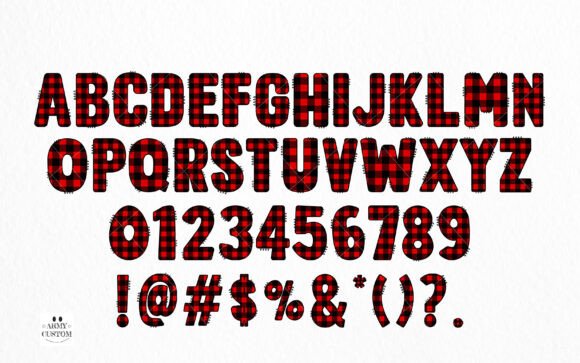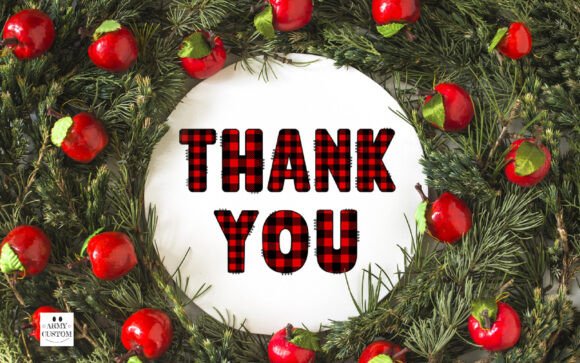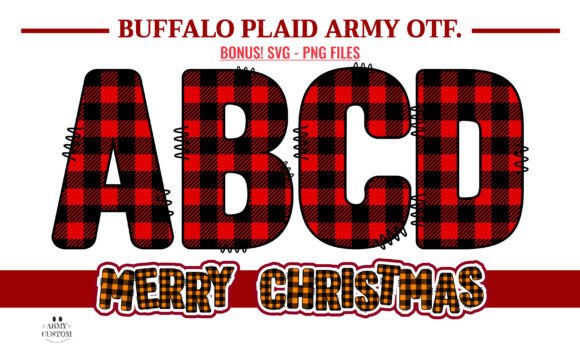
Deck the Halls with the Buffalo Plaid Font: A Festive Design Delight
It’s the most wonderful time of the year – and I’m not just talking about the hot cocoa and cookie exchange! As designers, we’re always on the lookout for that perfect font to make our holiday projects shine. I recall a particularly stressful design session last December, frantically searching for a font that captured the cozy essence of Christmas. That’s when I stumbled upon the Buffalo Plaid Font, and let me tell you, it was love at first sight! ✨
A Festive Font that Checks All the Boxes
The Buffalo Plaid Font, also known as the Christmas Plaid Pattern Font, is a typeface that exudes festive warmth. Its rich red plaid pattern seamlessly weaves traditional charm with an engaging aesthetic, precisely perfect for the season of merrymaking. Here are some things I love about this delightful font:
- ✅ Quintessential holiday feel: This font invokes the cozy comfort of a log cabin Christmas, making it perfect for holiday projects, invitations, and decorations.
- ✅ Rustic appeal with a modern twist: The plaid pattern adds a touch of rustic charm, while the design itself feels modern and fresh.
- ✅ Seamless design: The plaid pattern is continuous, creating a beautiful, cohesive look that’s perfect for large designs or backgrounds.
A Few Quirks to Keep in Mind ⚠️
While the Buffalo Plaid Font is a design delight, there are a few things to consider:
The Story Behind the Buffalo Plaid Font
The Buffalo Plaid Font was inspired by the classic plaid patterns of the North American wilderness. Its designer aimed to capture the warmth and coziness of a log cabin Christmas, combining traditional elements with modern style. The result is a font that’s both nostalgic and fresh – perfect for the holiday season.